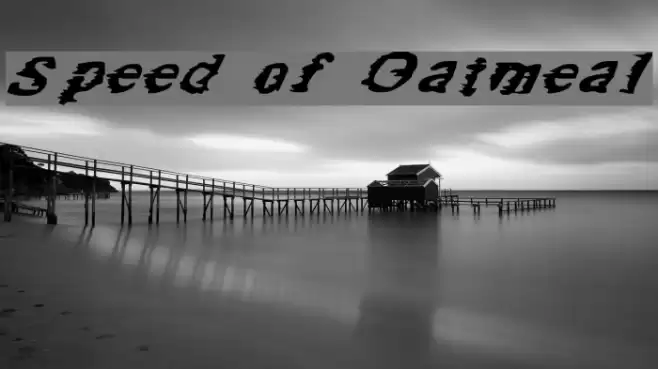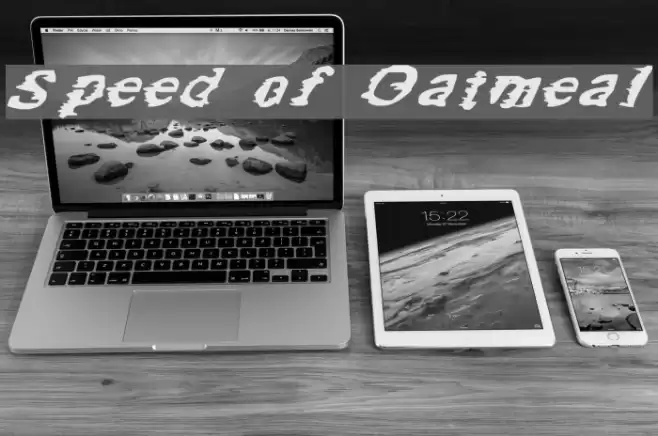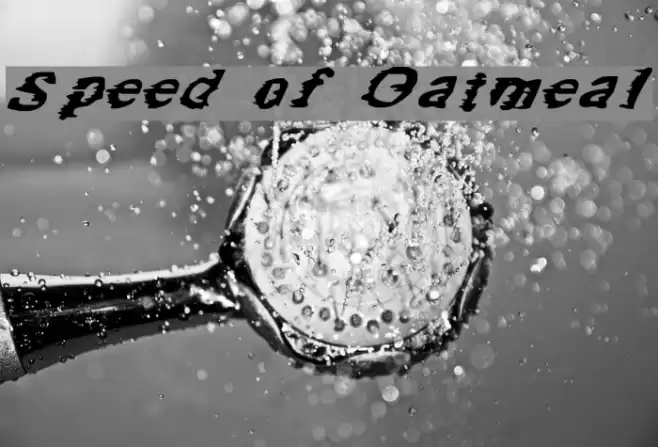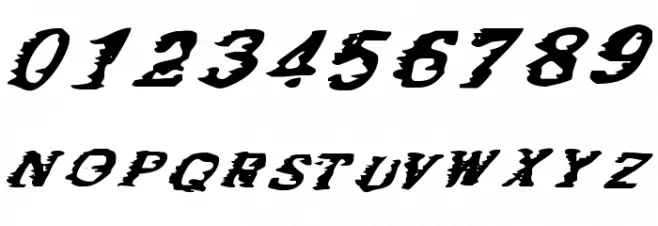
Speed of Oatmeal Font
Speed of Oatmeal Description
This font features a dynamic and energetic style, characterized by its jagged, irregular edges that give it a sense of motion and speed. The letters are bold and slightly slanted, adding to the impression of movement. Each character is uniquely crafted with a rough, textured appearance, making it stand out as a display typeface. The font's design is reminiscent of action-packed themes, suitable for projects that require a sense of urgency or excitement. Its distinct style makes it ideal for eye-catching headlines or branding that needs a bold statement.
A dynamic, jagged font with a sense of motion and bold, textured characters from Uncategorized fonts.
- Proposed Projects: Ideal for action-themed posters, sports branding, dynamic logos, and eye-catching headlines.
- Overall Style: Dynamic, Energetic